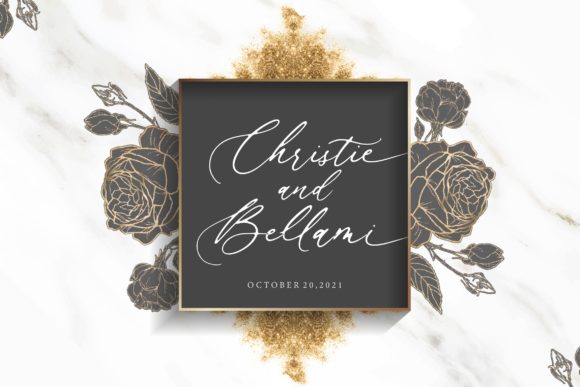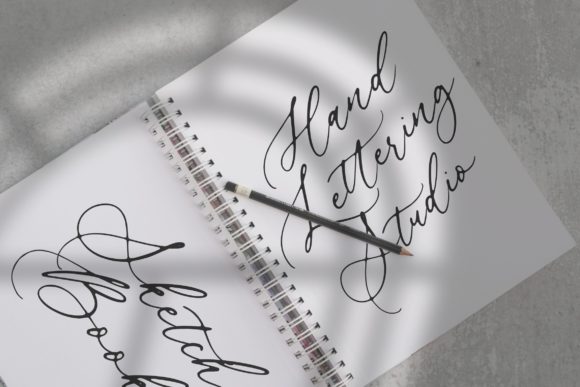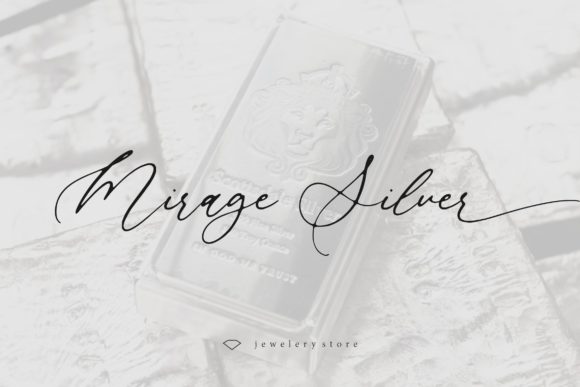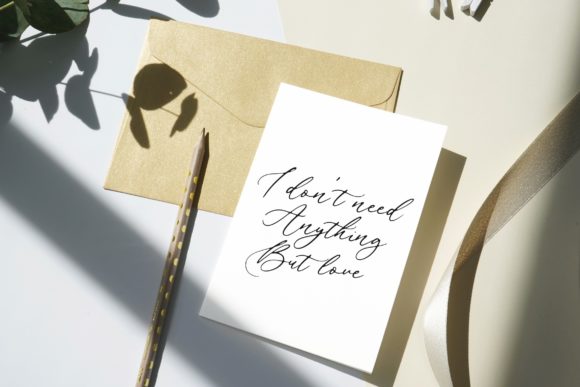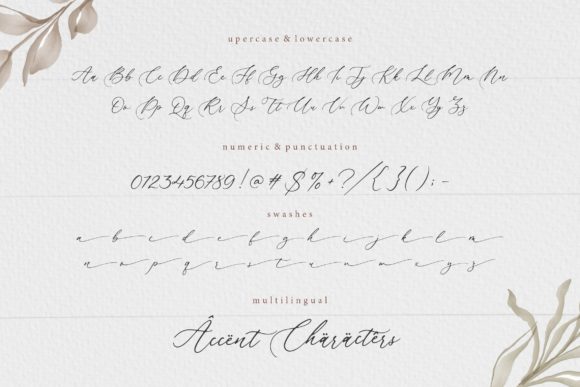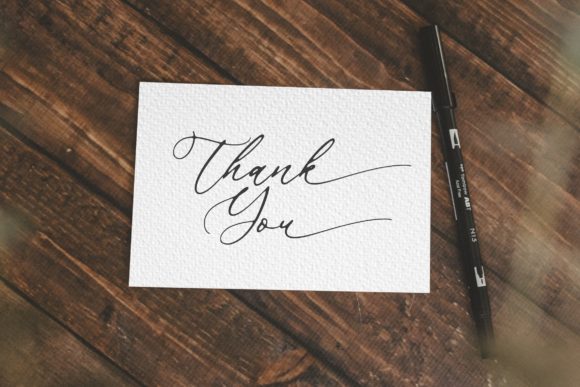
Unleash Your Creativity with the Timeless Elegance of Beautica Beautiful Calligraphy Font
Have you ever been browsing through a beautiful book or journal and stopped at a page with a stunning handwritten title or quote? That’s when it hits you – the magic of calligraphy fonts. For designers and creatives, the search for the perfect font is a constant quest. And, we’re excited to introduce you to Beautica Beautiful Calligraphy Font, a flowing handwritten font that will leave you spellbound.
Beautica Beautiful Calligraphy Font is a must-have for any design project that requires an elegant touch. Its distinct and timeless style will make your designs stand out from the crowd. Whether you’re working on a wedding invitation, a logo, or a social media graphic, this font will add a touch of sophistication and charm. With Beautica Beautiful Calligraphy Font, you’ll be able to create spectacular designs that will leave a lasting impression.
Key Features of Beautica Beautiful Calligraphy Font
- Font Family: Beautica Beautiful Calligraphy Font
- Unique Characteristics: This font features elegant and beautiful calligraphy, making it perfect for invitations, wedding stationery, and other special occasions
- Language Support: Supports multiple languages, including Latin-based languages, Cyrillic, and Greek
Designer Review: Beautica Beautiful Calligraphy Font
Overall, I think Beautica Beautiful Calligraphy Font is a beautiful and elegant addition to any project. ✨ The font is perfect for creating invitations, quotes, and other decorative text.
Here are some of its strengths:
- The font has a lovely, handwritten feel to it, making it perfect for projects that need a personal touch.
- The font is highly customizable, allowing you to adjust the size, color, and style to fit your project’s needs.
- The font is well-suited for digital and print projects, making it a versatile choice for designers.
- The font can be a bit difficult to read in certain sizes or styles, which may affect its usability in certain contexts.
- The font may not be suitable for projects that require a more modern or minimalist aesthetic.
Overall, I would recommend Beautica Beautiful Calligraphy Font for projects that require a touch of elegance and sophistication. While it may have some limitations, its beauty and customization options make it a great choice for designers.
Beautica Beautiful Calligraphy Font is ideal for wedding invitations, baby shower invitations, and other special occasion invitations.
Use it to add a touch of elegance and sophistication to your designs.
Q: What is the recommended font size and line height for optimal readability with Beautica Beautiful Calligraphy Font?
For optimal readability, we recommend using a font size between 18-24 points and a line height of at least 1.2-1.5 times the font size. This will help maintain the font’s elegant and flowing appearance while ensuring clear readability.